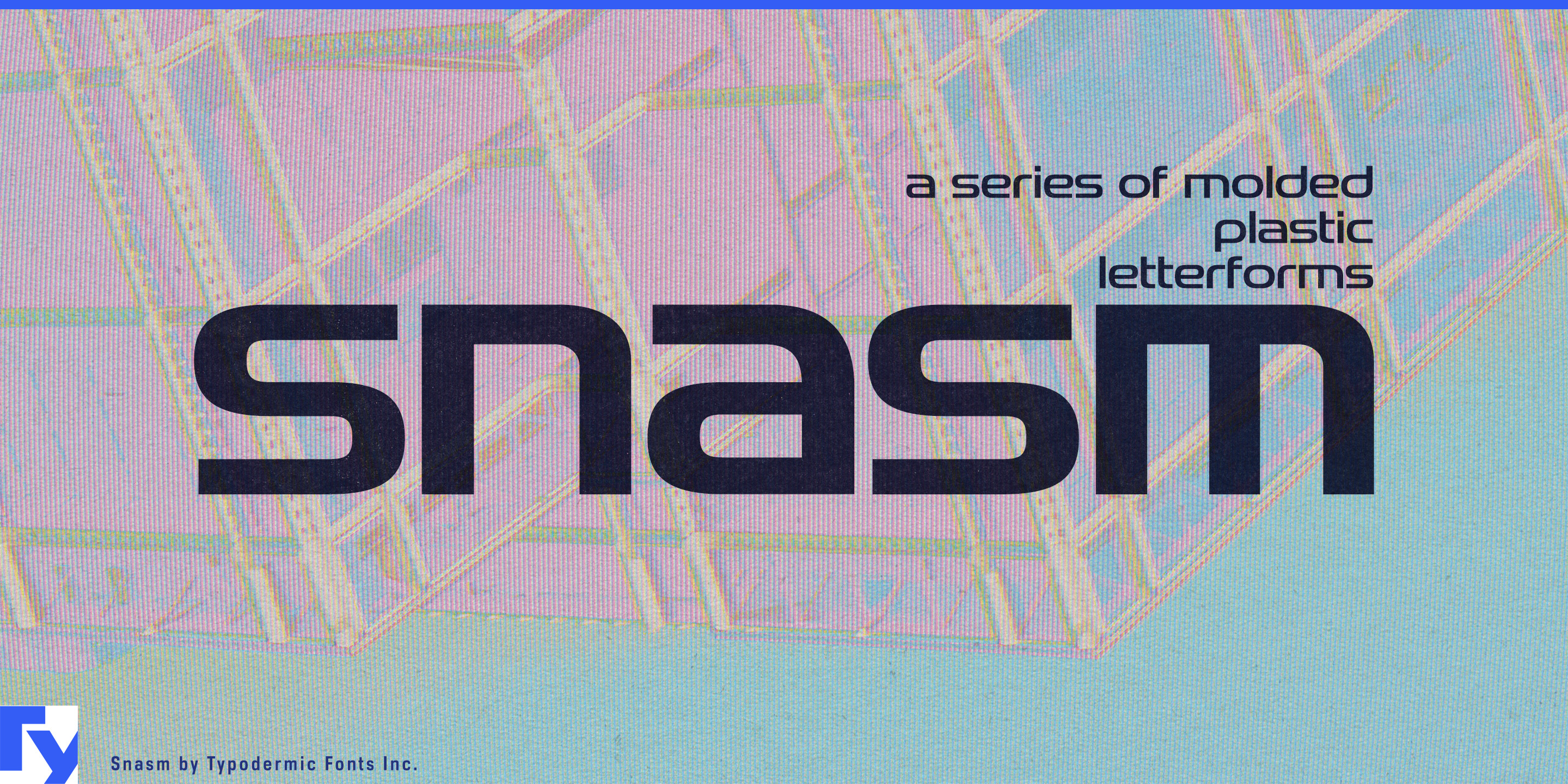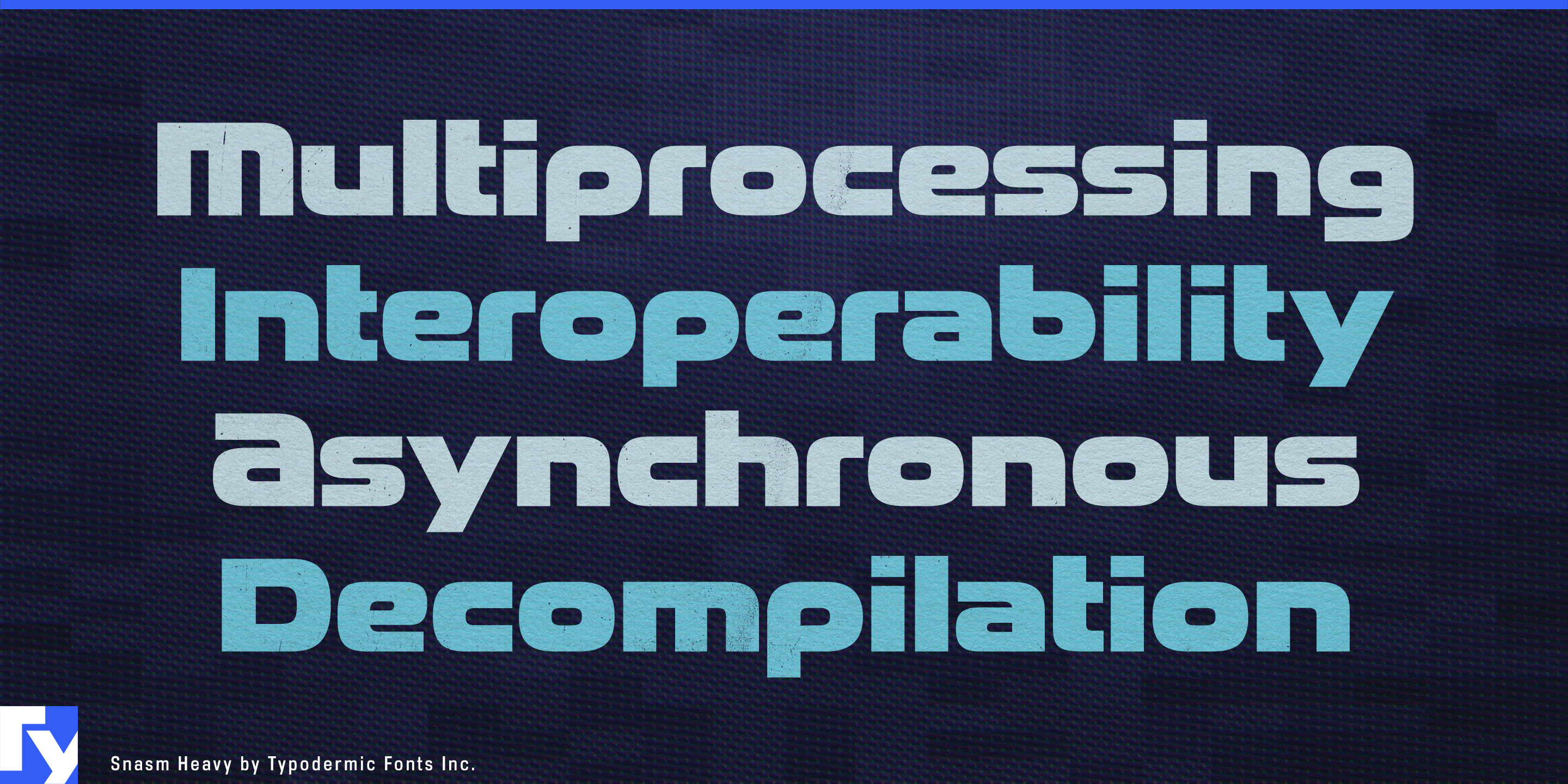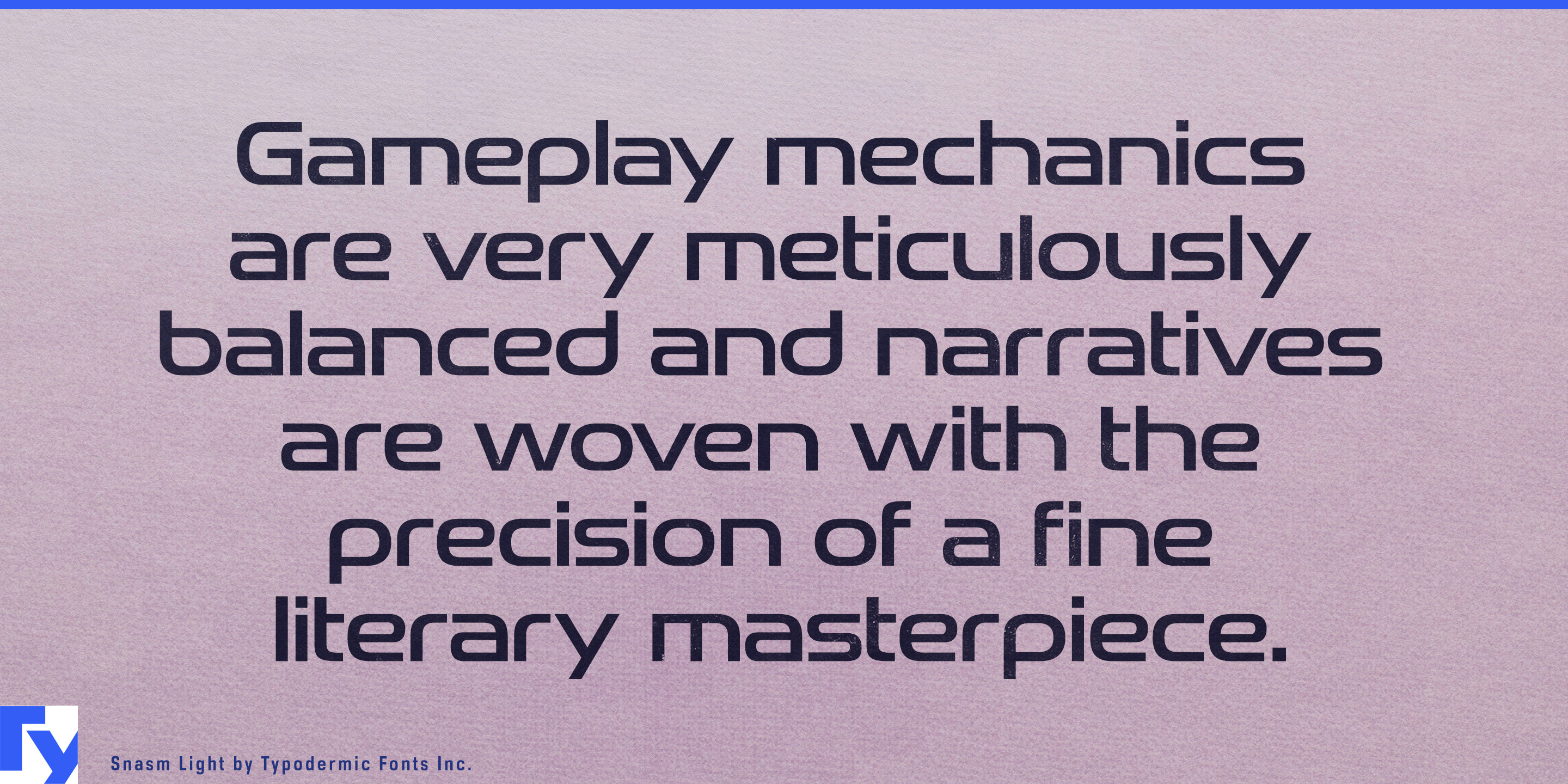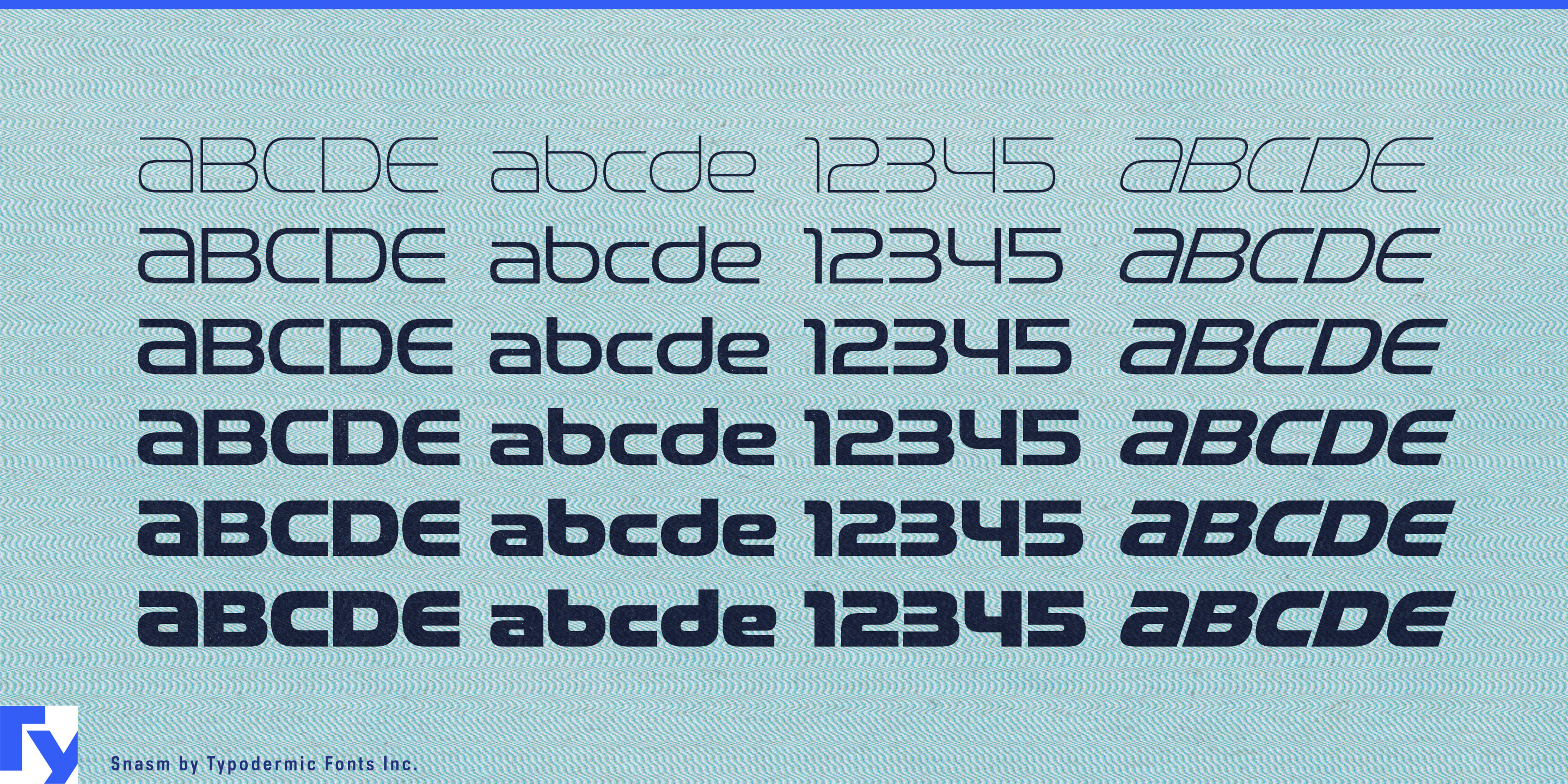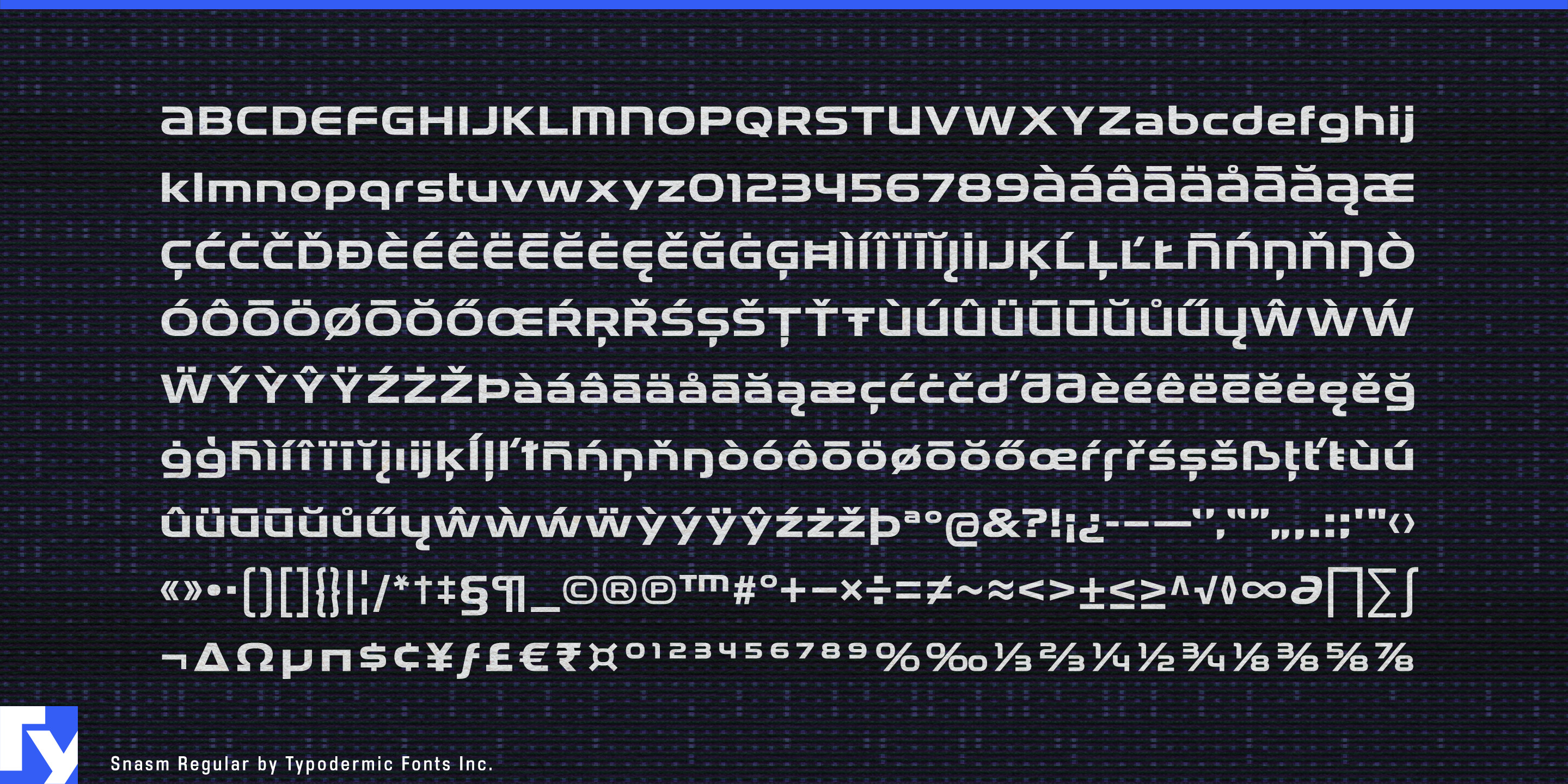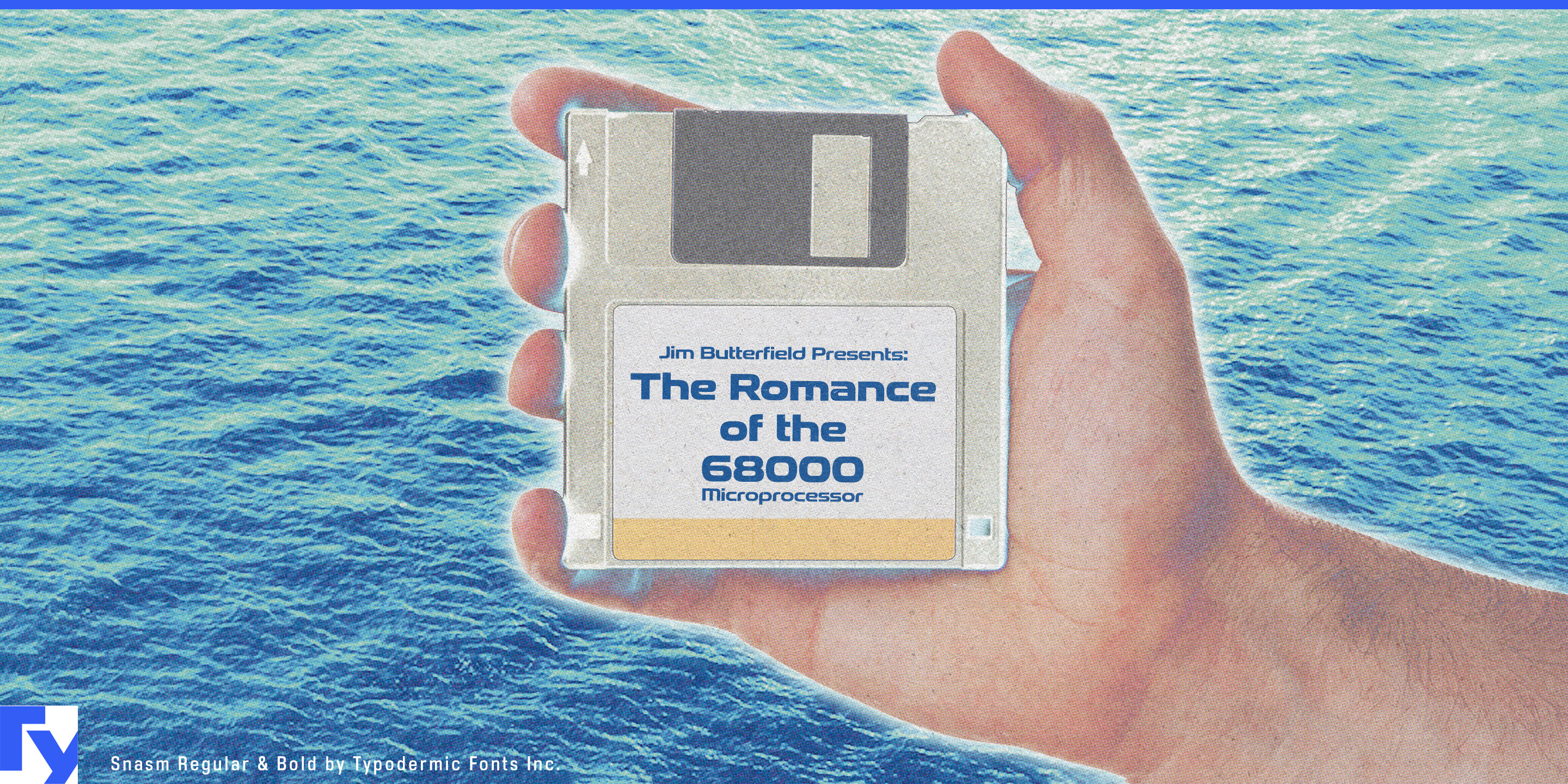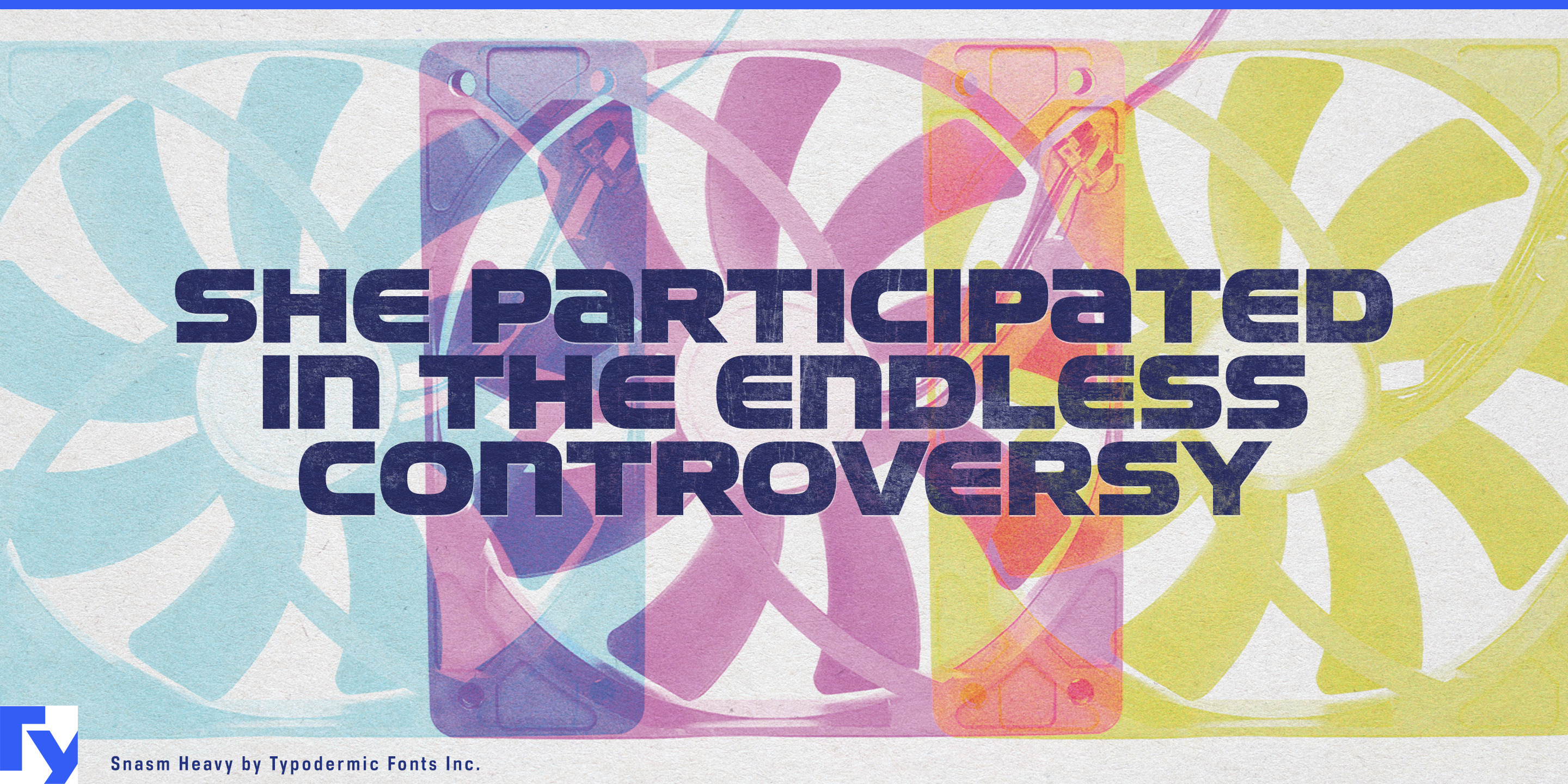
Snasm
Advanced technology has a presentation problem. A home robot, smart appliance or wearable device needs to look convincingly engineered, but many technological typefaces push toward military hardware, science fiction or sterile corporate neutrality. Snasm offers another route. Its broad, rounded-square construction gives products a clear technological identity without making them look hostile or theatrical.
Snasm grew from the visual language of late-20th-century Japanese consumer electronics, particularly the Super Famicom logo. Its name refers to the SNASM development systems used in Super NES production. Rather than reproducing one historical mark, the family expands that broad, softened geometry into a mixed-case type system suited to contemporary hardware.
Home robotics is an especially natural fit. Robot vacuums, companion devices, automated cooking systems, lawn and pool equipment, home-security hardware and other domestic machines need identities that feel technical enough for sophisticated equipment but approachable enough to live in everyday spaces. Snasm can handle names on the chassis, charging-dock labels, product-series identities, packaging headings and launch graphics.
Smart appliances create a related problem. Connected ovens, induction systems, premium laundry equipment, air-treatment products and home-energy devices increasingly borrow the visual language of electronics. Snasm can give a model name or control heading more identity than a neutral geometric sans without making the appliance resemble a fictional spacecraft.
The same balance works for emerging AI hardware and wearables: smart glasses, translation devices, portable assistants, sensor-equipped accessories and other personal technology. Heavier styles can establish the product name, while lighter weights can carry short descriptive copy and interface headings.
Gaming remains part of Snasm’s DNA, but its useful territory extends beyond retro graphics. Handheld systems, controllers, VR equipment, racing rigs and streaming devices can draw on its Japanese consumer-electronics character without resorting to pixel lettering or arcade nostalgia. It can also lend believable identities to fictional manufacturers and devices inside games.
Snasm is built for technology that needs to look advanced without looking dangerous, anonymous or artificially futuristic. Its consumer-electronics roots make it especially useful for robotics, smart appliances, AI devices and gaming hardware designed to live close to people.